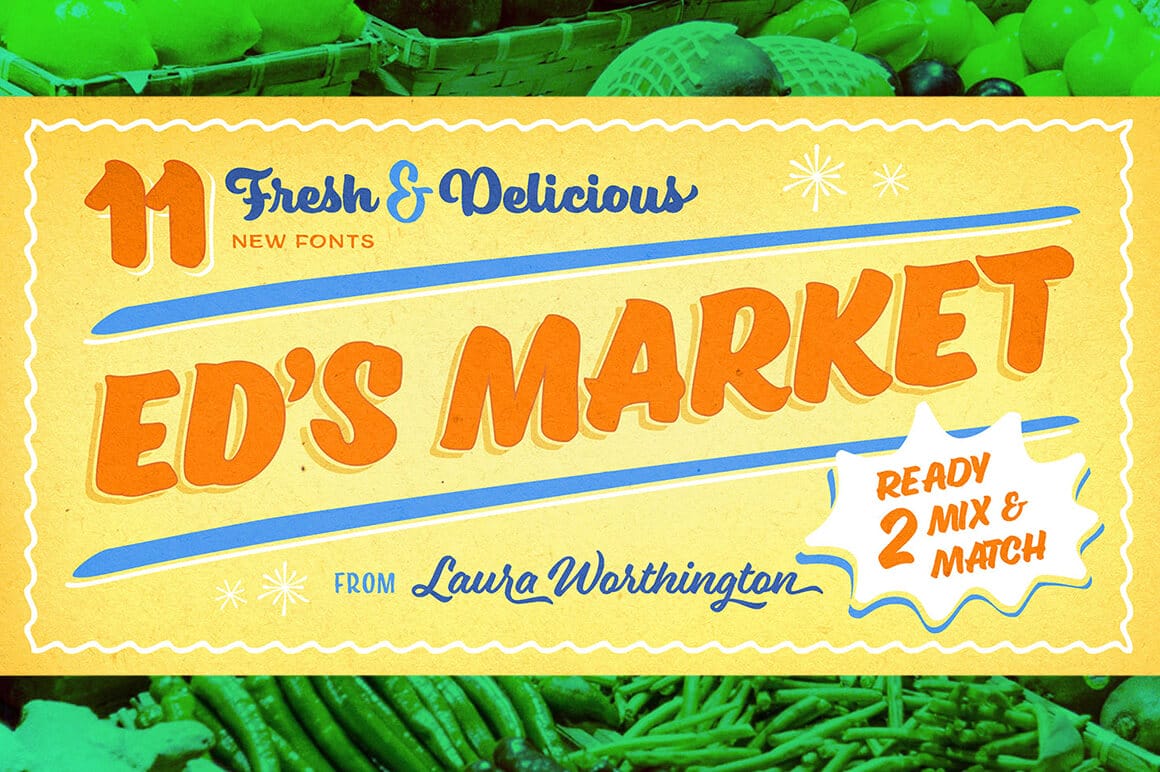
Who can resist a good painted sign? They just elicit a warm and inviting feel. And with this Mighty Deal from the mighty Laura Worthington, you can take home 11 fabulously fun fonts for 1 low price! Ed’s Market is inspired by classic 20th century grocery posters and each and every typeface was created by hand using a pointed brush. Additionally, most fonts feature more than 100 alternate characters and swash forms, as well as loads more extras including mixed-cases, all-caps versions, and extra design elements.
- Add some serious fun to your typeface toolbox with this fabulous set of fonts from Laura Worthington
- This warm, friendly Font Family includes 11 different hand-drawn fonts from Script to Narrow to Bold variations.
- Creator Laura Worthington beautifully brought all 11 typefaces to life by hand using a physical pointed brush for each and every weight and version.
- Inspired by classic 20th century grocery posters and showcards, Ed’s Market is sure to offer up a real inviting vibe.
- Each font includes more than 100 alternate characters and swash forms.
- Each display face features 3 variations for each letter, ensuring a real natural handpainted look for repeated characters.
- Additional features for display faces include mixed-case regular and all-caps versions of narrow, narrow slant, regular slant, bold, bold slant, and wide styles.
- Ed’s Market includes a set of wonderful design elements such as expandable arrows, rules and ribbons, as well as badges, scribbles, snipes, clouds, swashes and more.
- A perfect Font to use for a variety of projects including posters, logos, signs, T-shirts and more!